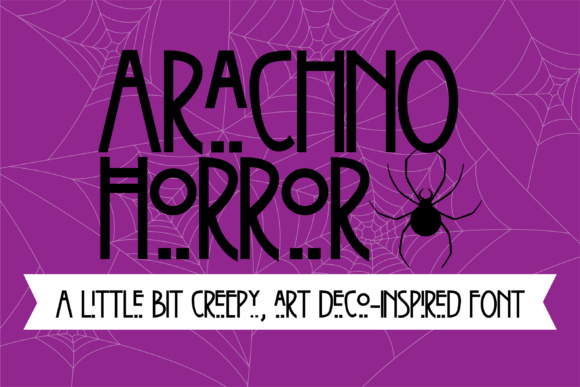
Looking for the perfect font to add a spooky twist to your Halloween designs? Look no further than Arachno Horror Font! Created by Illustration Ink, this sans serif font family features an art deco inspired design that is perfect for all things scary.
What sets Arachno Horror Font apart is its unique double dot feature, which appears beneath several letters and gives the font a higher baseline. This small detail adds a level of sophistication to the font, while still maintaining its spooky vibe.
But that's not all! Arachno Horror Font also includes a creepy spider bullet point, adding an extra touch of terror to your designs.
Whether you're creating invitations for a Halloween party, designing a spooky poster, or just want to add a touch of fright to your website, Arachno Horror Font is the perfect choice. With its eye-catching design and unique features, this font is sure to make your designs stand out and leave a lasting impression on your audience.